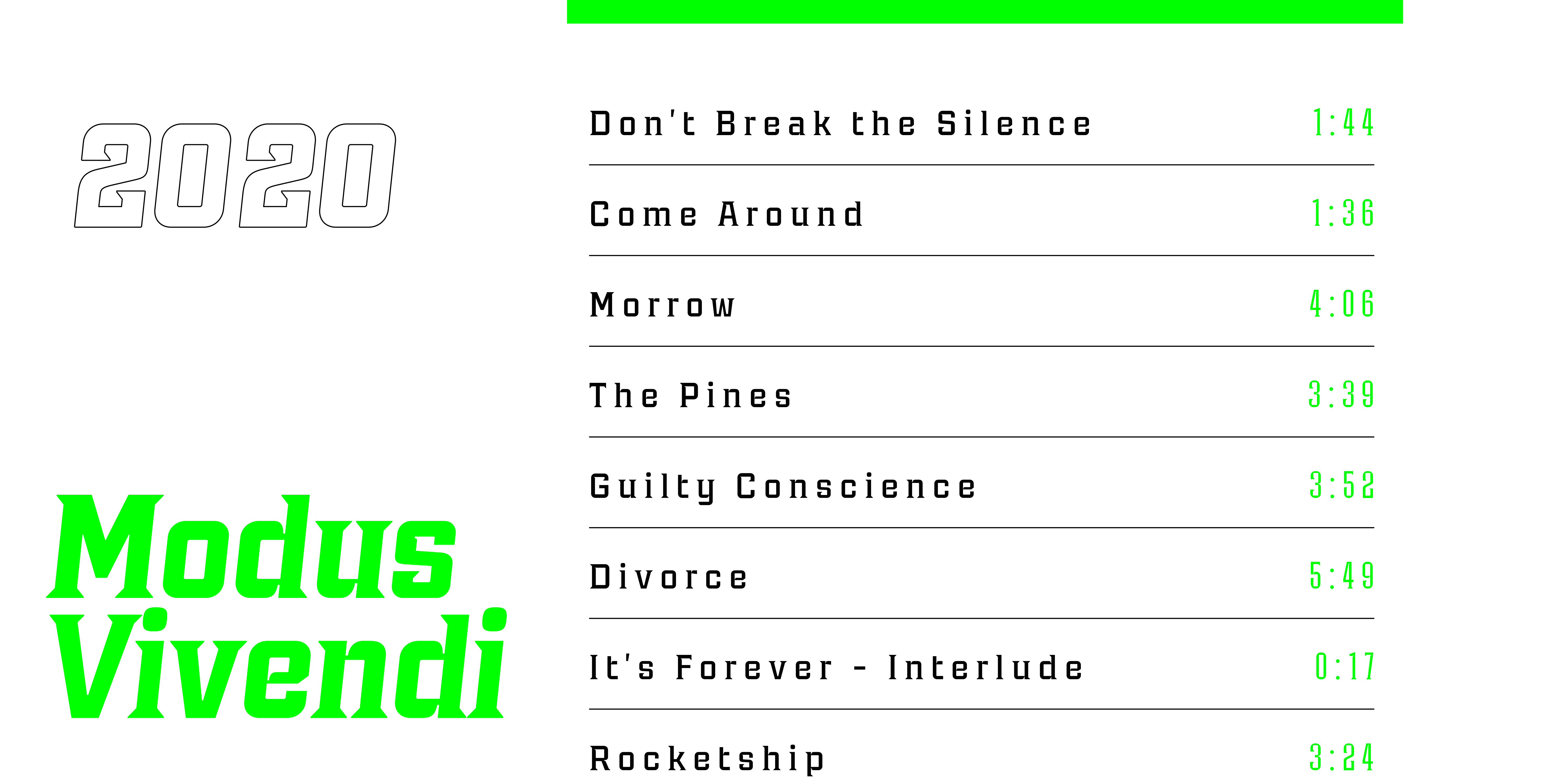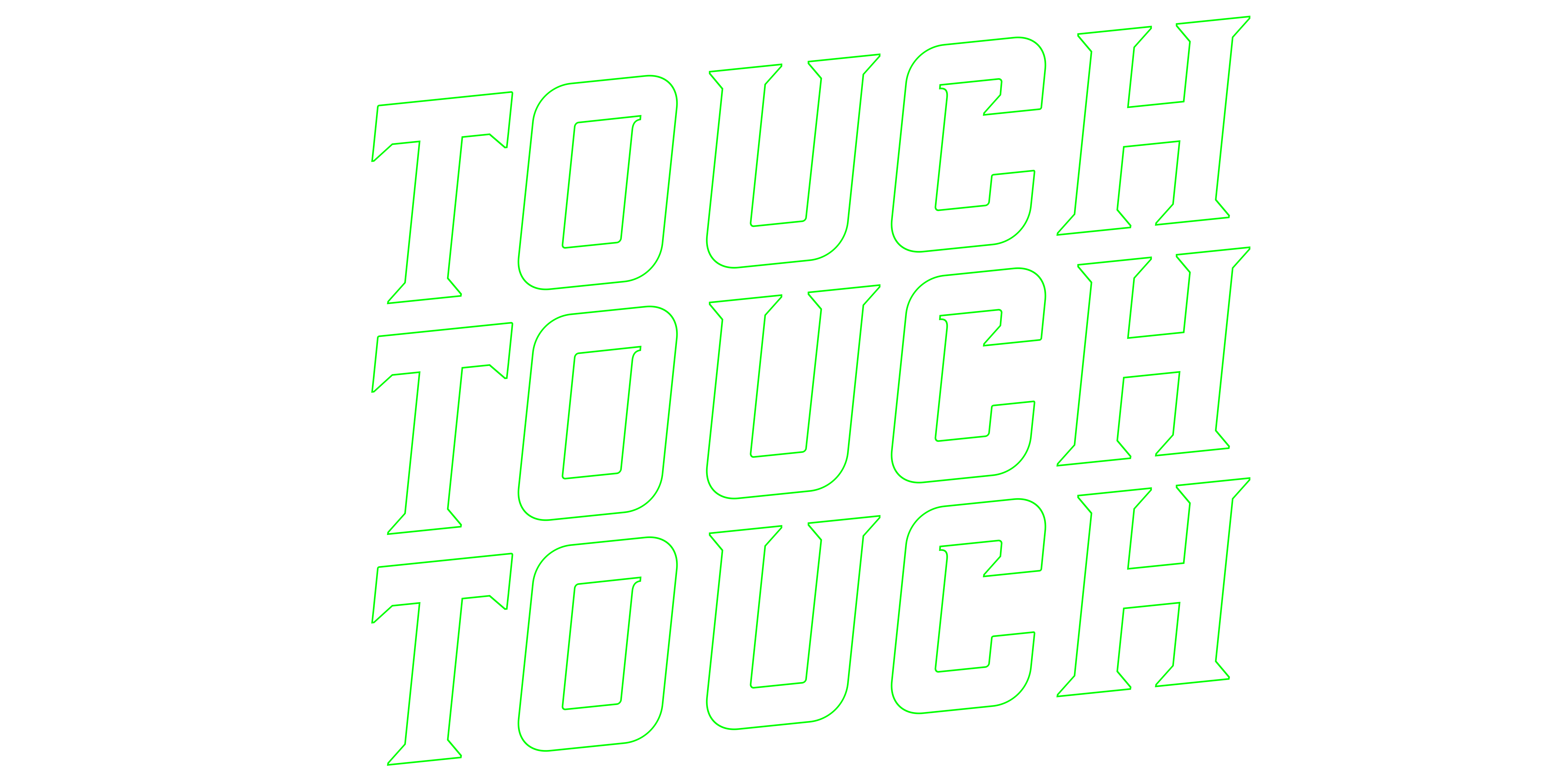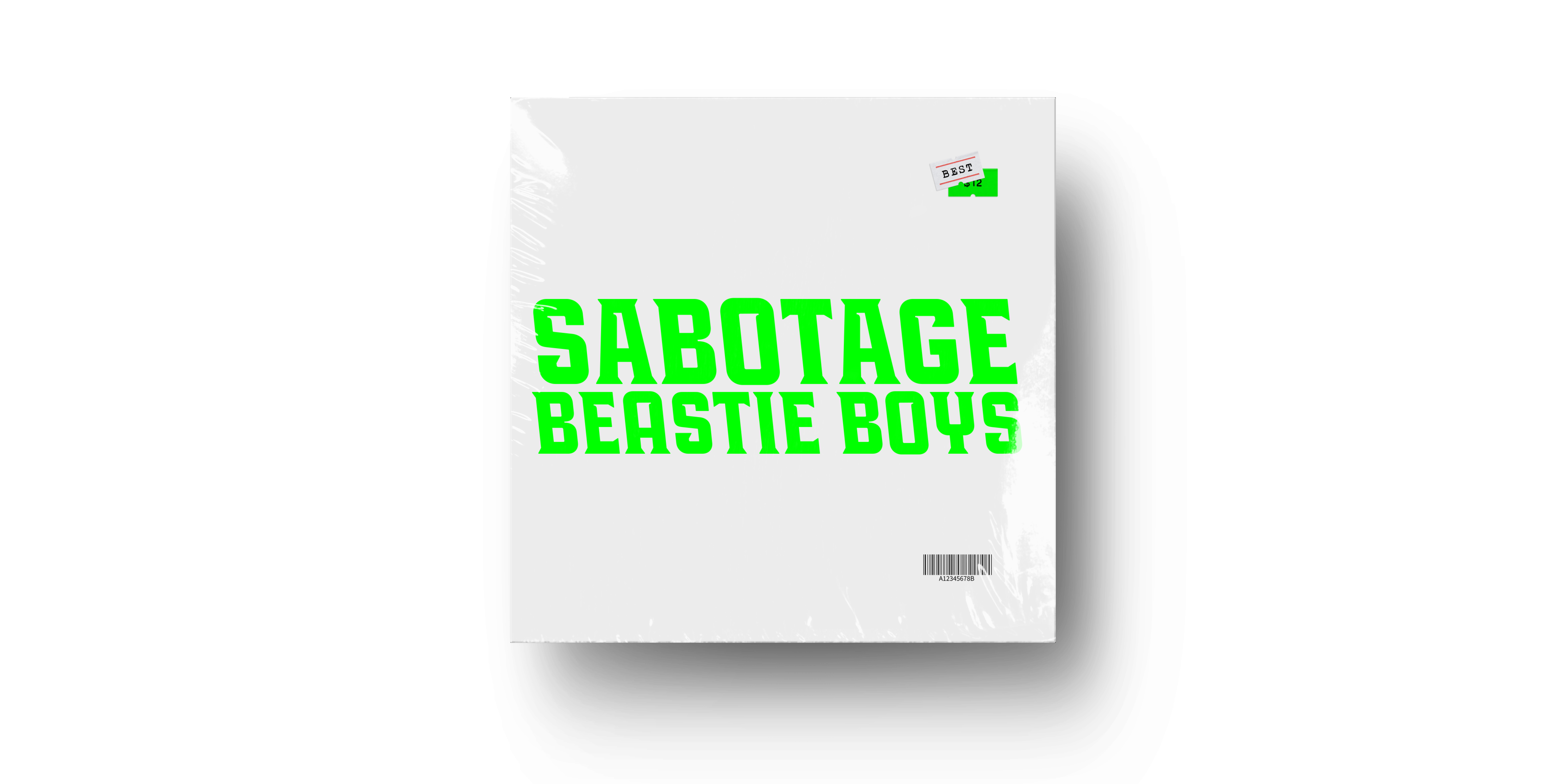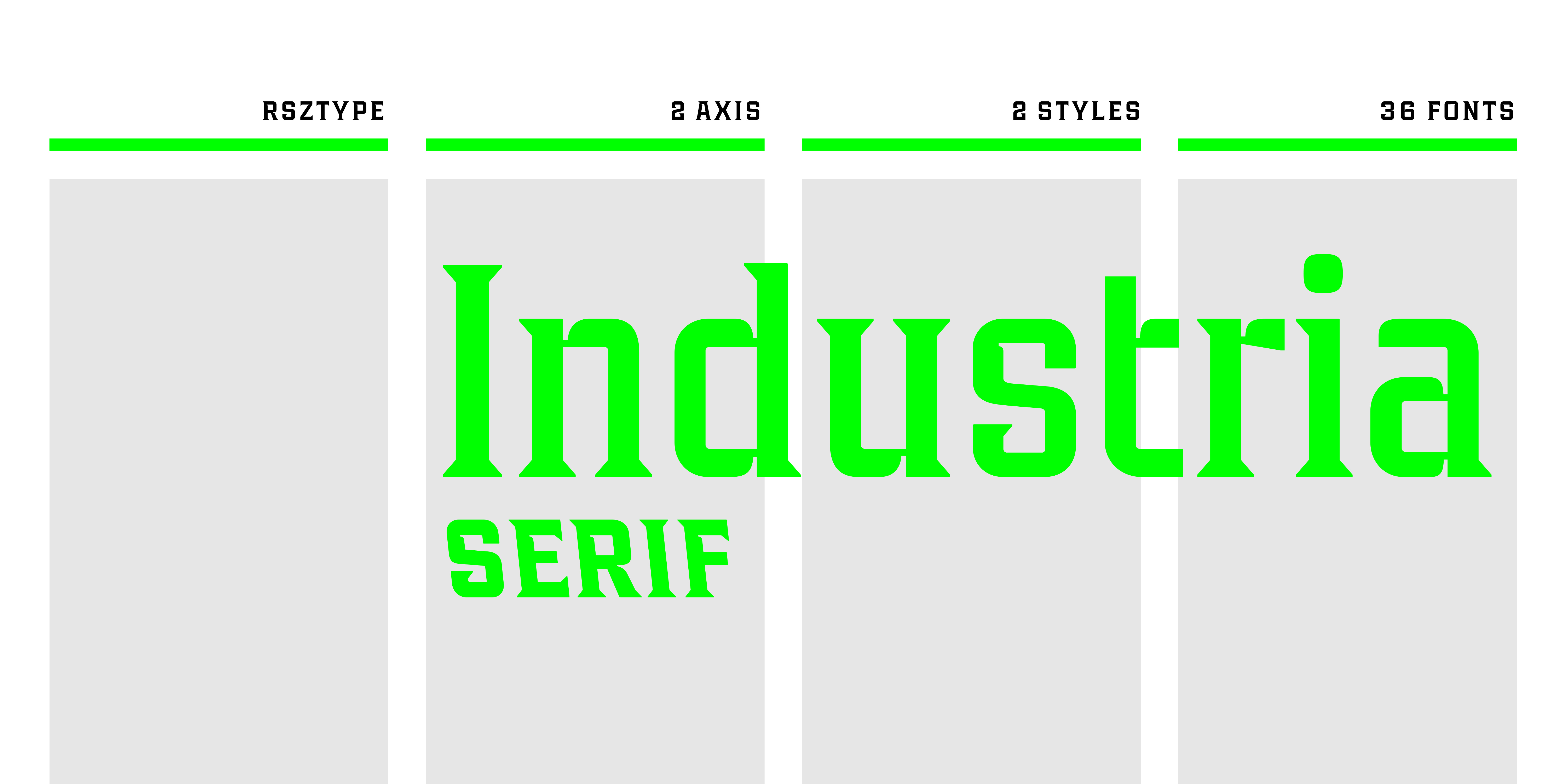
Industria Serif Collection
Industria Serif
Large serif family with a tech feel
Industria Serif
Designed by Resistenza Type Foundry
Industria Serif is a modern serif font with a geometric touch. A large family composed by 2 axes, 3 styles in total 36 fonts. This font gives you the freedom to create a full brand identity.